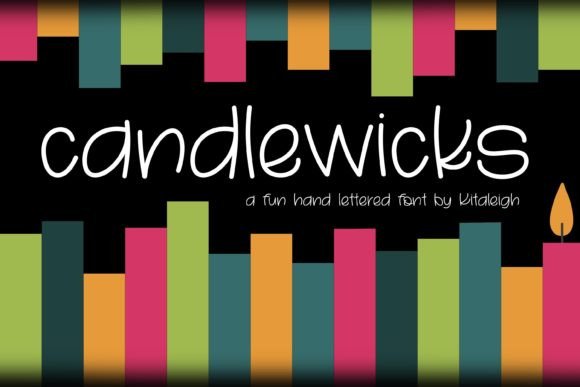
Welcome to Candlewicks Font, the newest addition to our collection of fonts! Created by Kitaleigh LLC, this sans serif font features a modern, minimalistic aesthetic that will surely add a sleek and sophisticated touch to any design project.
Candlewicks Font is the perfect choice for designers looking to create an eye-catching logo, website, or any other design idea that requires a stylish and elegant font. With its clean and simple lines, Candlewicks Font is both versatile and adaptable, making it an excellent choice for a wide range of projects.
This font has been designed with great attention to detail, ensuring that it is easy to read and visually appealing. Candlewicks Font is not only functional but also emotionally evocative, it is perfect for conveying the emotions of your message through typography.
The Candlewicks Font is a unique typeface that sets itself apart from other fonts. It is a perfect match for designers who are looking to create a modern and minimalistic feel, and yet it is still unique enough to stand out from the crowd.